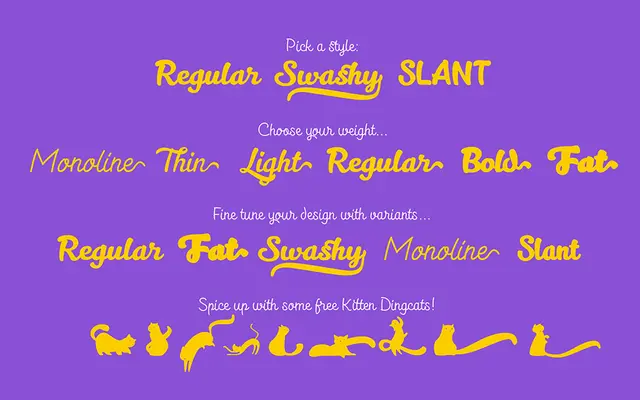
Kitten
Zetafonts · Cosimo Lorenzo Pancini · 2016
A multi-weight signpainter script by Cosimo Lorenzo Pancini, with swash variants, OpenType ligatures and a companion set of cat dingbats.
Spanning six weights from Monoline to Fat, Kitten draws on the hand-lettered aesthetic of sign painting, with curvier forms in the heavier weights suited to logos and display use, and cleaner lighter cuts that work for shorter text blocks. Three style variants — Regular, Slant and Swash — extend the family to 16 styles in total, while OpenType features provide uppercase and lowercase ligatures, alternates and swash characters. Cat silhouette dingbats, designed by Isabella Ahmadzadeh, are accessed via the Dingcats subfamily. The family was recognised with a PRINT Award for typeface design in 2016.
Kitten is a multi-weight connected script with a hand-lettered, signpainter aesthetic, spanning upright and slanted variants with swash alternates and OpenType features typical of display scripts.